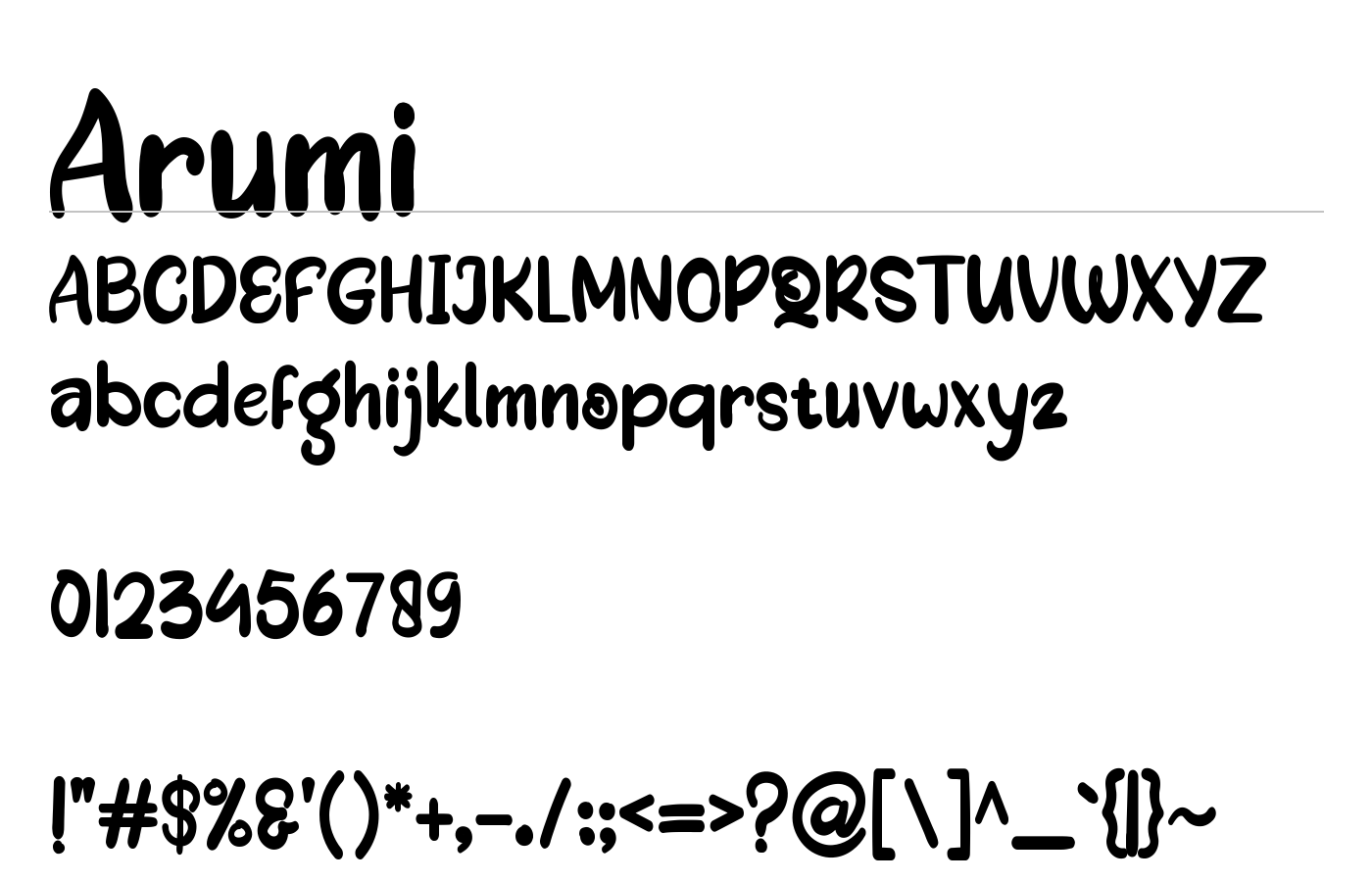
Arumi Font is a playful, hand-drawn sans serif typeface with a casual, friendly feel. Its rounded, irregular strokes and moderate weight create an approachable look that’s perfect for fun, informal designs such as children’s products, creative branding, and lighthearted headlines. This font works well where a warm, personal touch is desired to engage audiences in a cheerful way.
Arumi Font